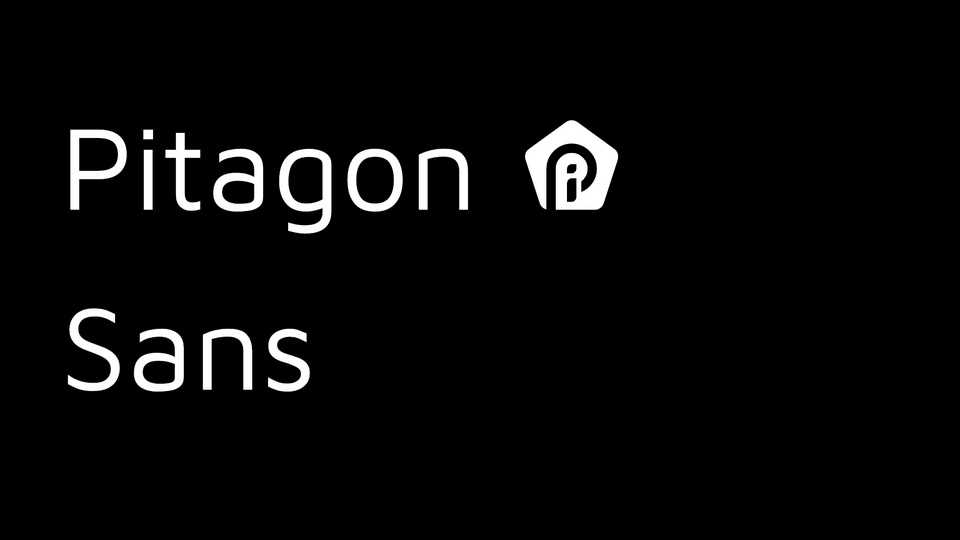
Download Pitagon Sans font, a fresh take on geometric sans serif styles, contains the Pitagon Design Principles embodied in the Pi Design System. Pitagon Sans is used in the context of specific use of big text such as title, heading, etc.
Designer: Travis Tran